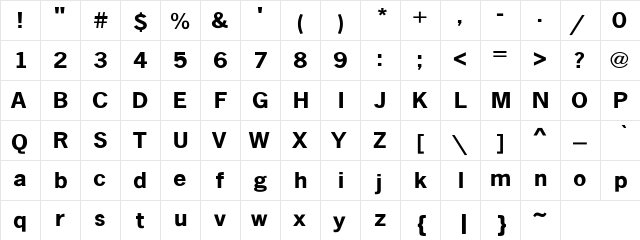
Abell Condensed Bold Extended 3 Regular
Design Context for Abell Condensed Bold Extended 3 Typeface
Abell Condensed Bold Extended 3 is a composed and adaptable typeface that performs quietly and consistently across a wide range of design contexts. The heavy weight commands attention and anchors typographic hierarchies. Its narrow stance lets it pack a punch even in space-constrained designs.